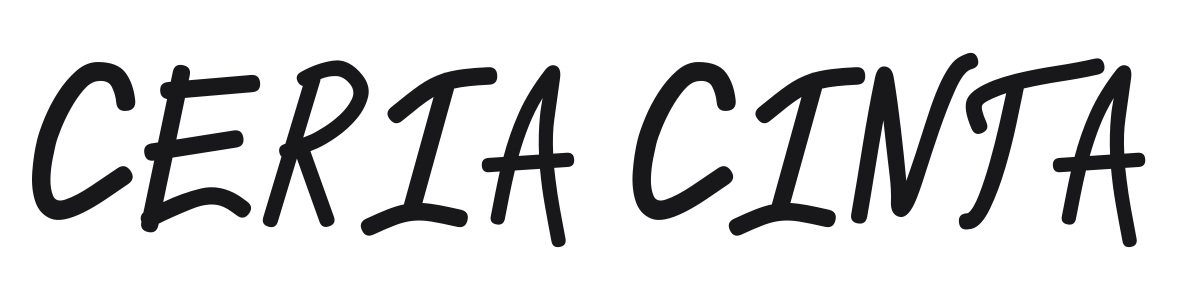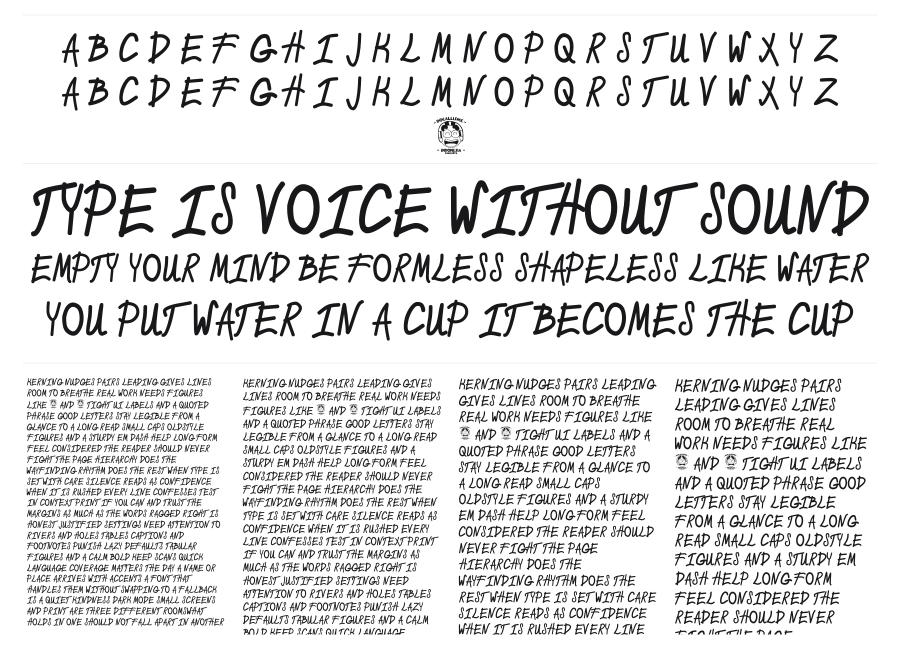
Ceria Cinta
by Docallisme HAS Feat Dutsky · Website
Ceria Cinta is a bold casual script by Ryal Docallisme HAS, rendered in the style of a thick marker or felt-tip pen. The letters slant consistently to the right with lively irregularity, giving it a hand-made, spontaneous character. It works well at large sizes for posters, packaging, and informal branding.